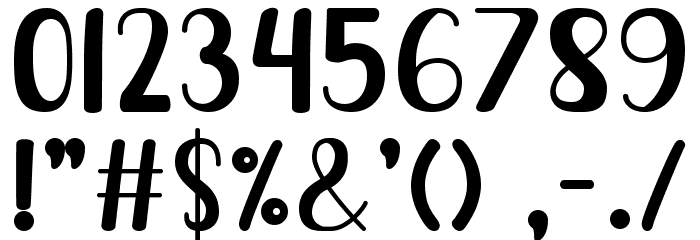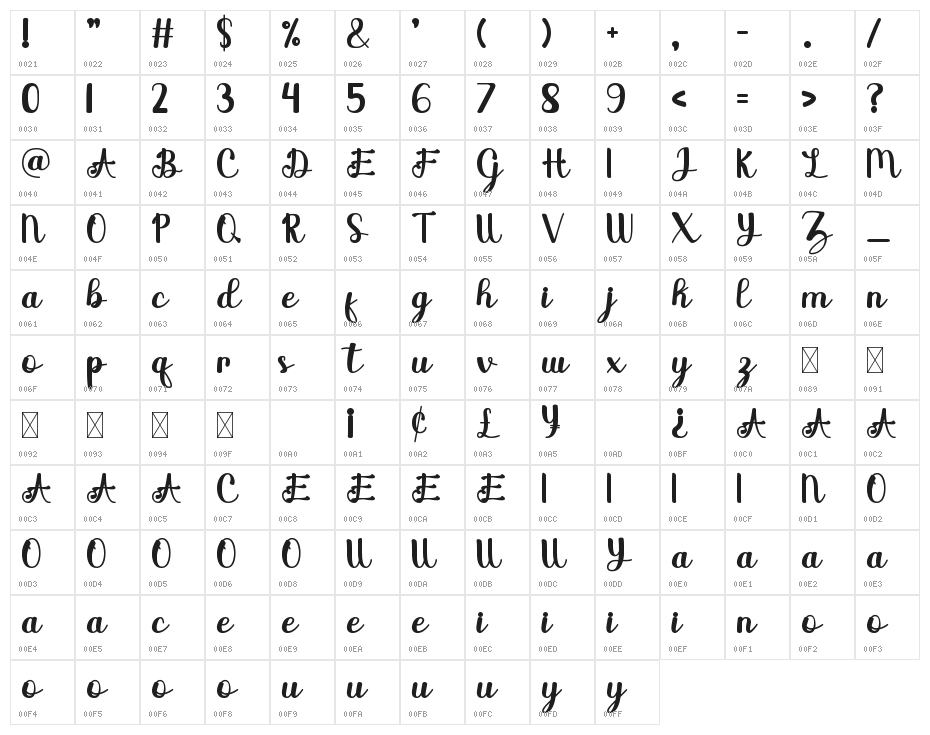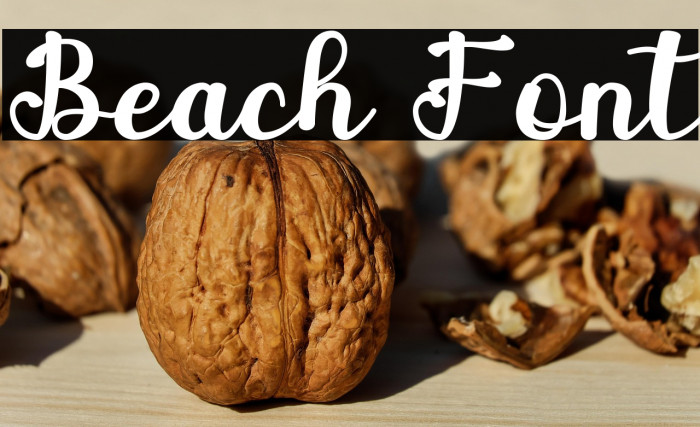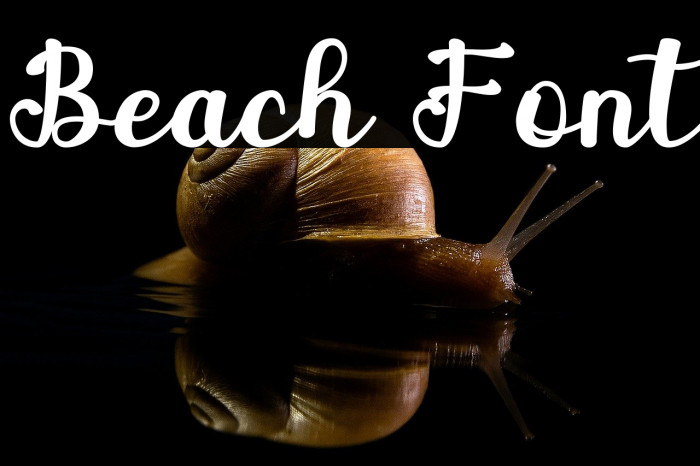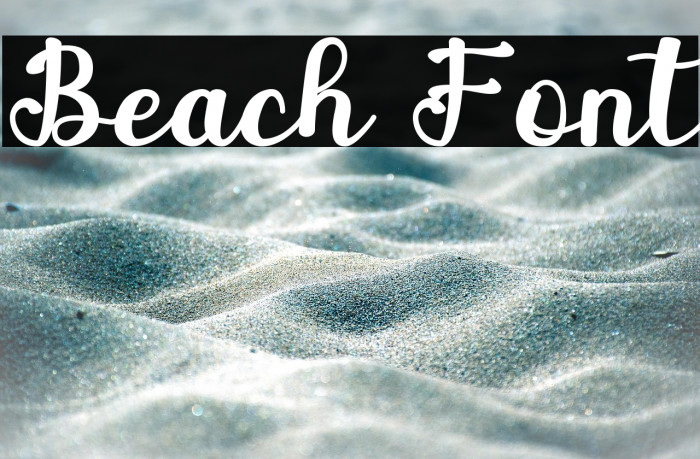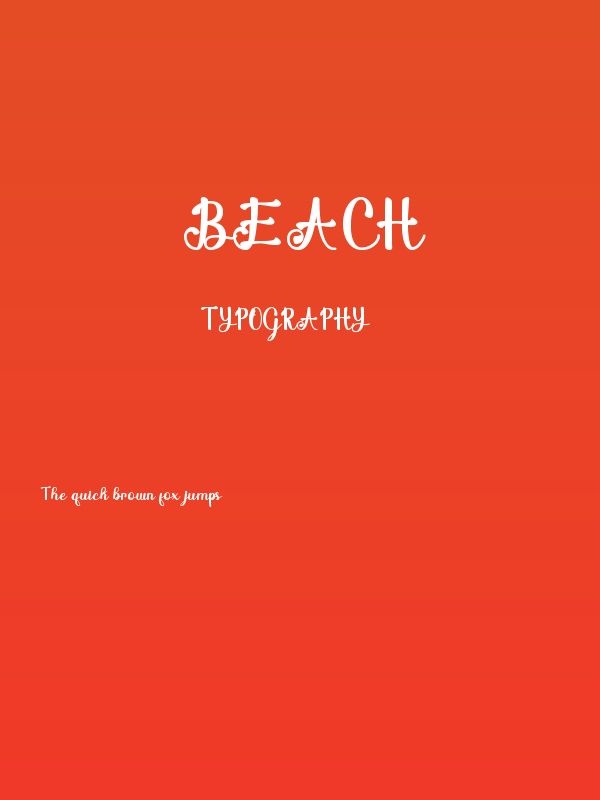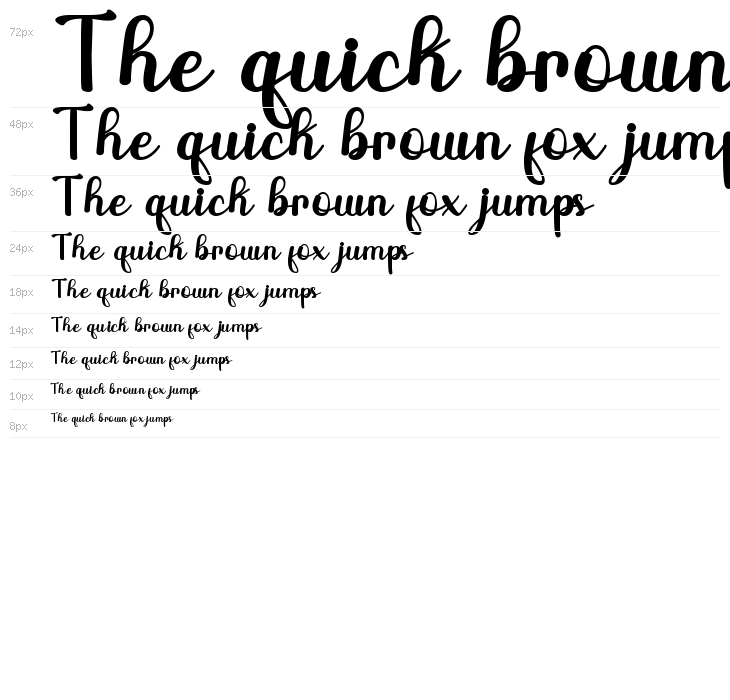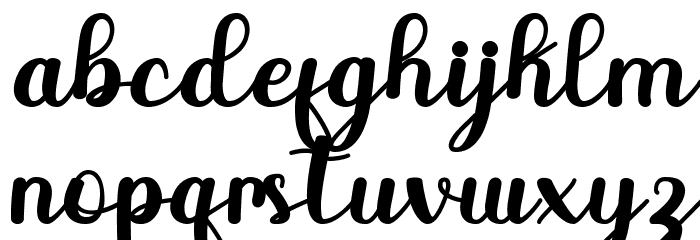
Beach Font
Beach Description
This font exudes a playful and whimsical charm, characterized by its flowing, cursive style. The uppercase letters are bold and feature elegant loops and swirls, giving them a dynamic and lively appearance. The lowercase letters maintain a consistent flow, with smooth connections between each character, enhancing the script-like quality. The numerals are bold and slightly rounded, complementing the overall style. Special characters are creatively designed, adding to the font's decorative appeal. This font is perfect for projects that require a touch of elegance and playfulness.